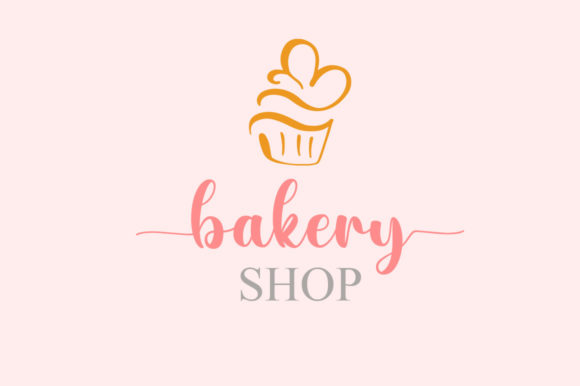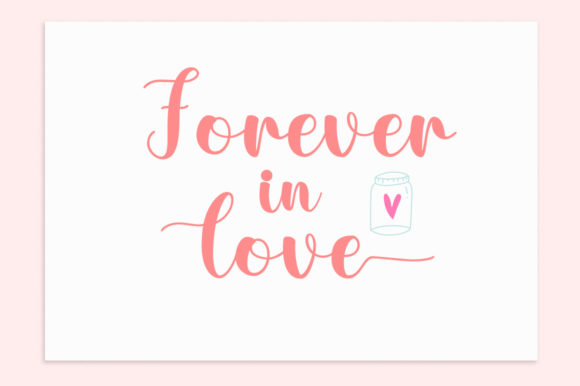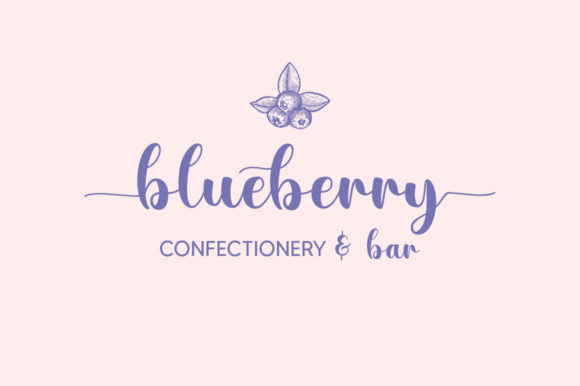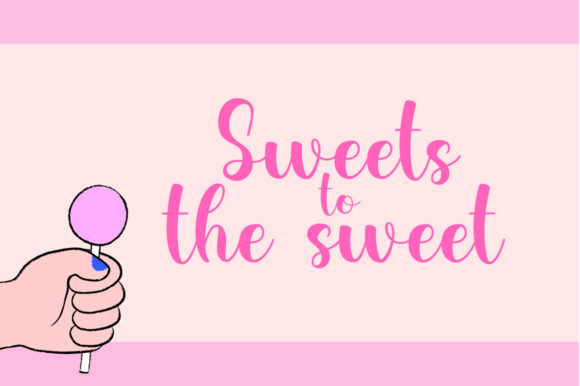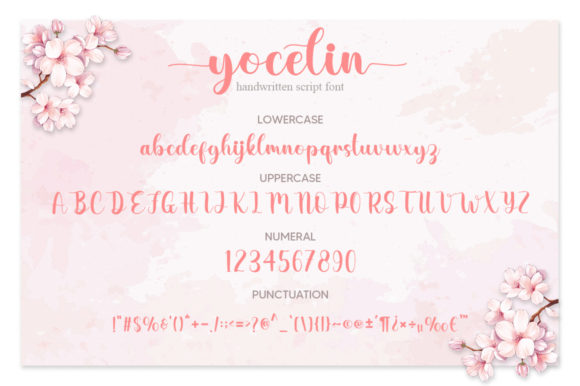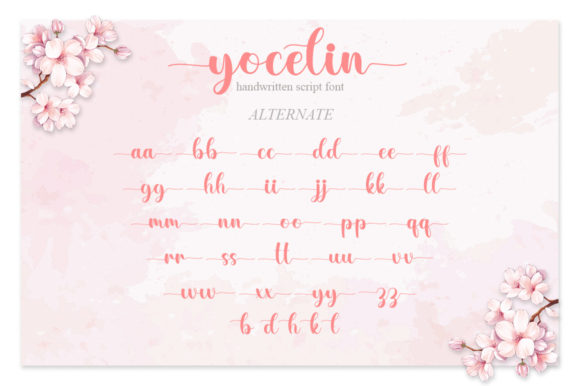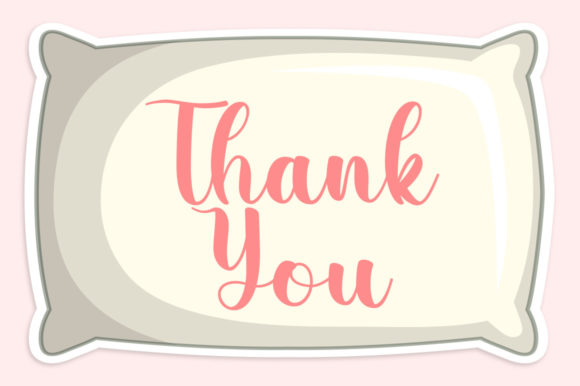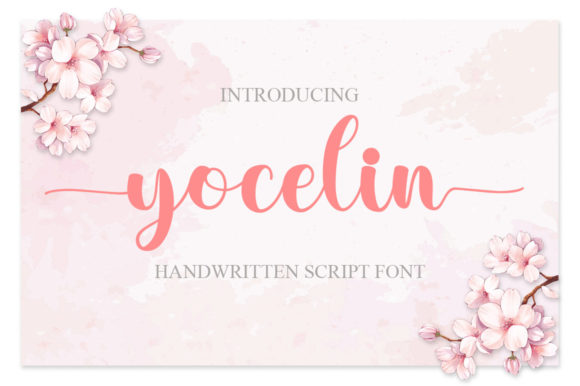
Yocelin Font
About Yocelin Font
Yocelin is a lovely and timeless handwritten font. It is the best choice for creating eye catching logos, branding and quotes. Yocelin is PUA encoded which means you can access all of the glyphs and swashes with ease!